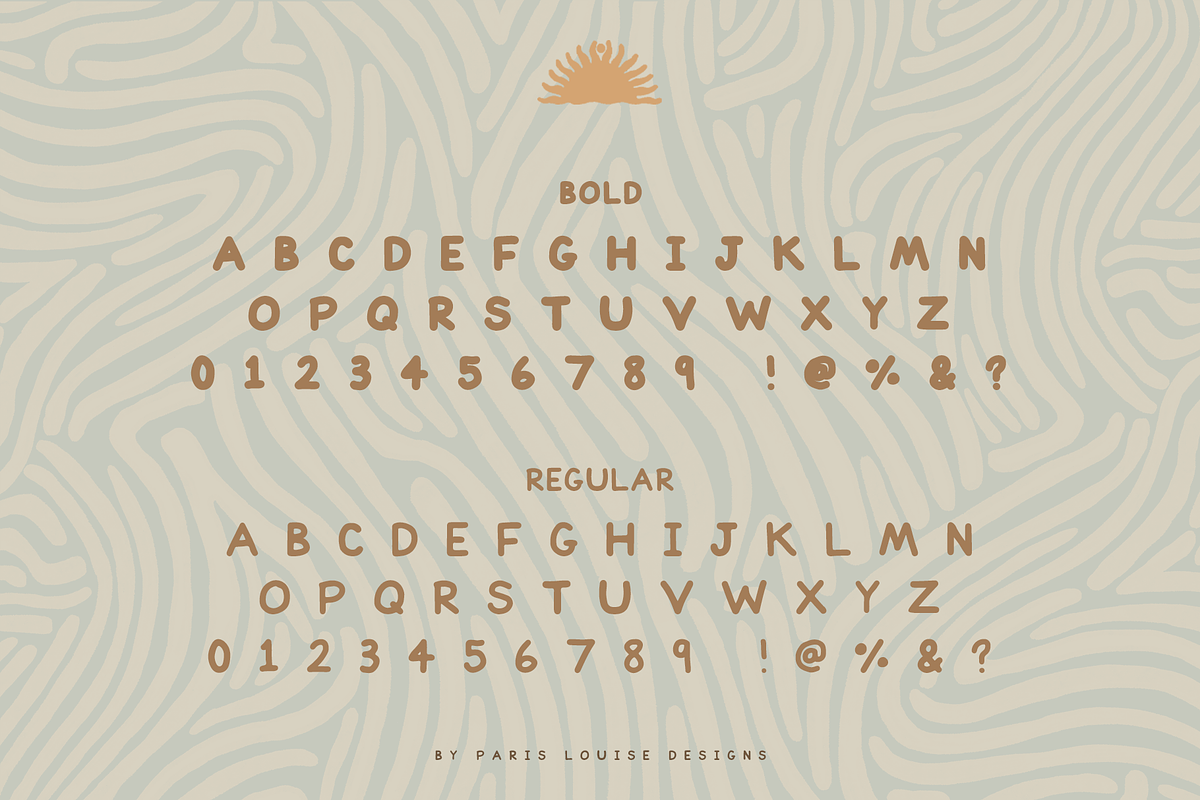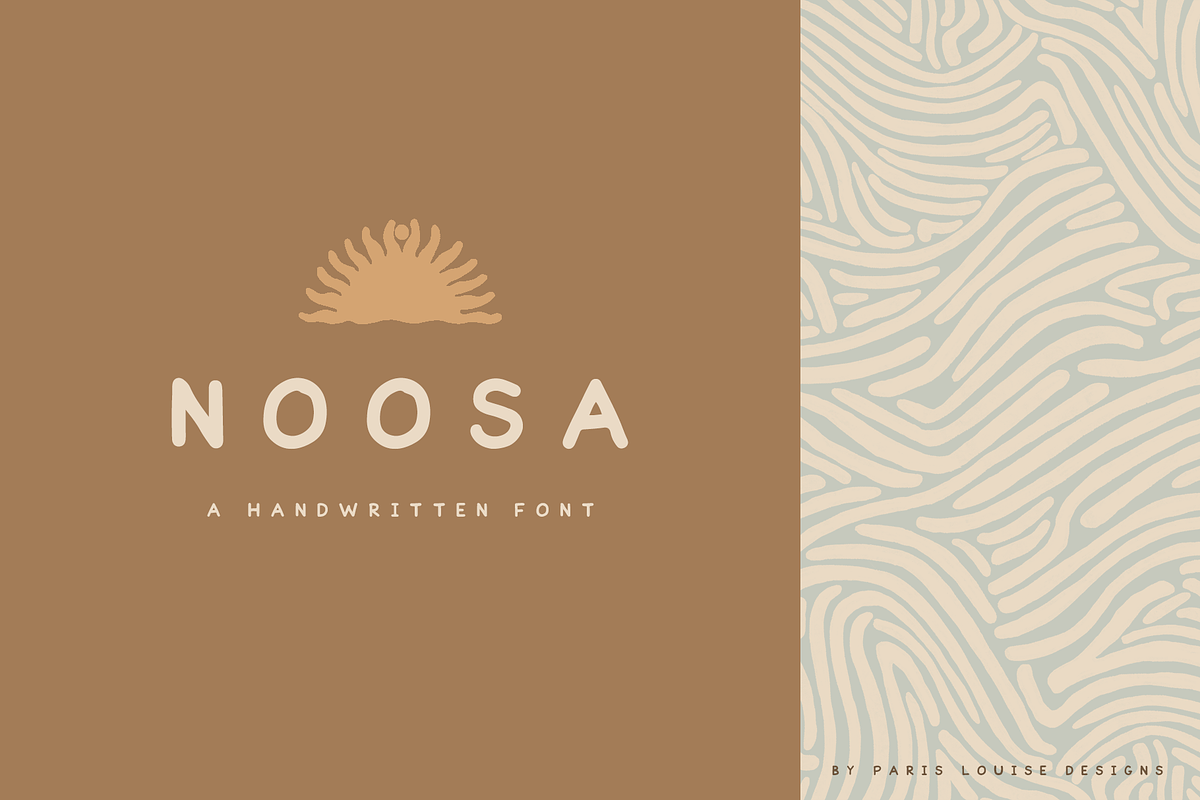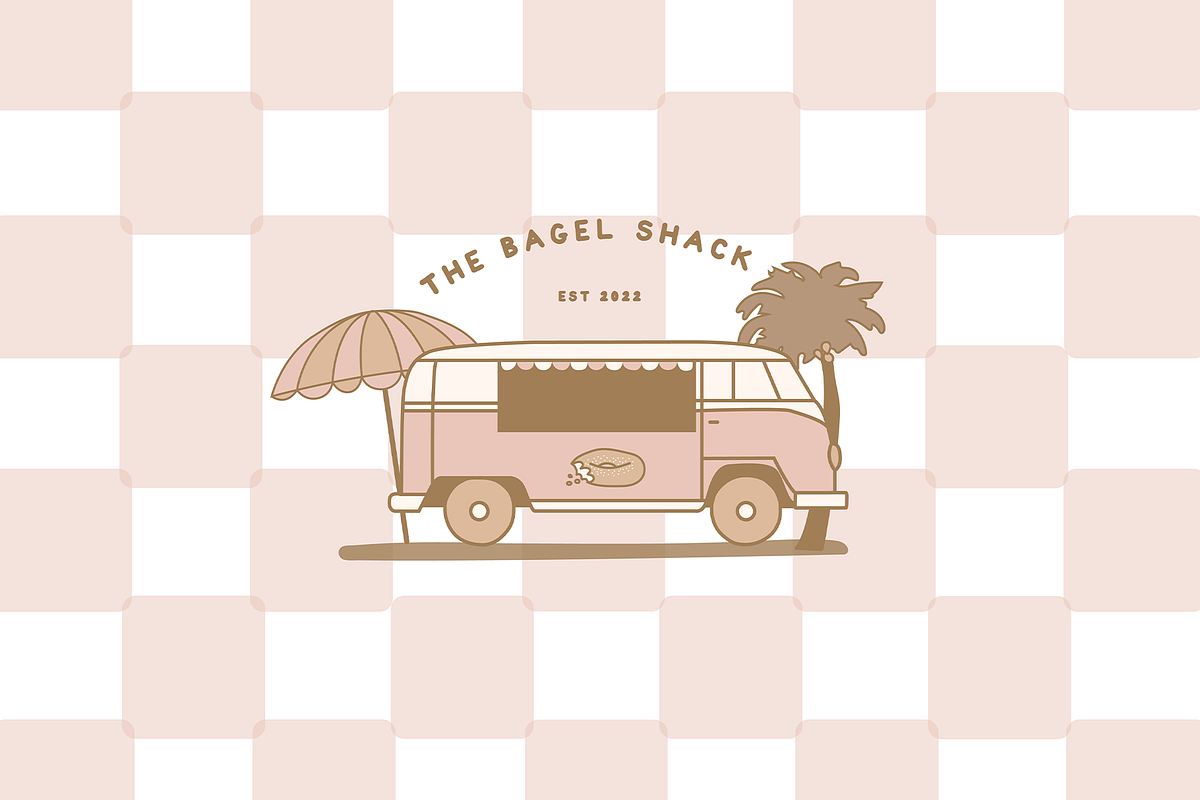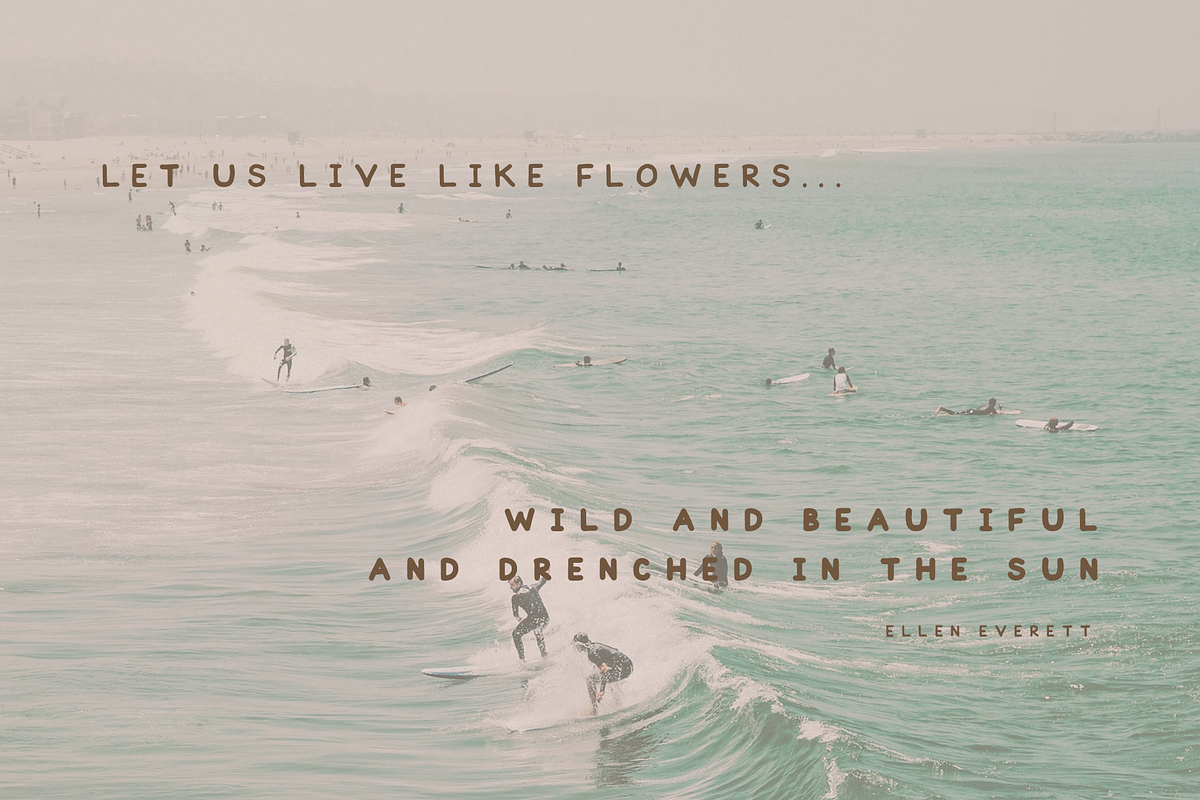
NOOSA - Handwritten Sans Serif
N O O S A | Handwritten sans serif
A beautiful and simple font perfect for branding, logos, posters, signs, packaging and so much more!